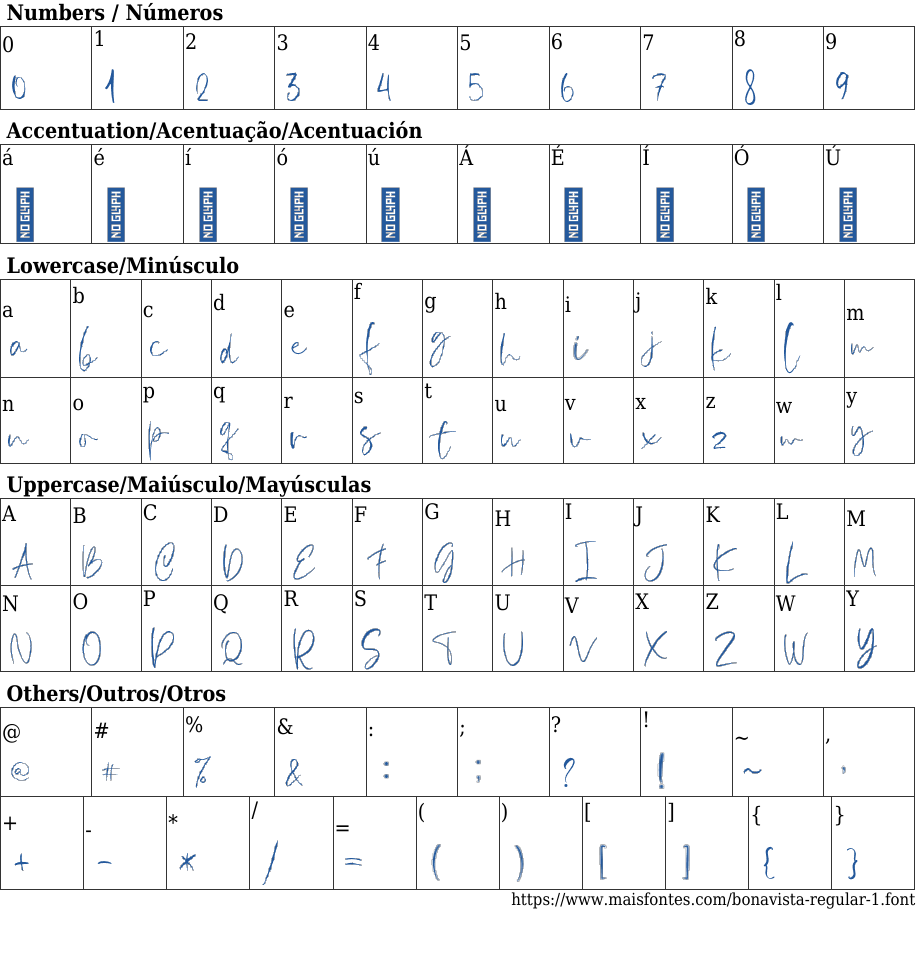
Bonavista Font . Thousands of designers (famous or not) use the image font detection system to find a font or similar free fonts from an image. Bonavista is an elegant and flowing handwritten font. It is pua encoded which means you can access all of the glyphs and swashes with ease! To learn more about the font and typography of the bonavista regular font, simply enter the text in the field below and click generate. A great choice for highlighting your design elements. Download bonavista|beauty script (686309) instantly now! Bonavista signature is the perfect font for all your fun designs. Click here and download the bonavista font · window, mac, linux · last updated 2024 · commercial licence included The bonavista signature font was designed by rinto dwi nugroho from almeera. Thousands of designers (famous or not) use the image font detection system to find a font or similar free fonts from an image.
Thousands of designers (famous or not) use the image font detection system to find a font or similar free fonts from an image. Thousands of designers (famous or not) use the image font detection system to find a font or similar free fonts from an image. To learn more about the font and typography of the bonavista regular font, simply enter the text in the field below and click generate. Bonavista is an elegant and flowing handwritten font. Bonavista signature is the perfect font for all your fun designs. The bonavista signature font was designed by rinto dwi nugroho from almeera. It is pua encoded which means you can access all of the glyphs and swashes with ease! Click here and download the bonavista font · window, mac, linux · last updated 2024 · commercial licence included Download bonavista|beauty script (686309) instantly now! A great choice for highlighting your design elements.
Simplicity Handwritten Font business, catchy, cute, elegant, font Bonavista Font Thousands of designers (famous or not) use the image font detection system to find a font or similar free fonts from an image. The bonavista signature font was designed by rinto dwi nugroho from almeera. Bonavista is an elegant and flowing handwritten font. Thousands of designers (famous or not) use the image font detection system to find a font or. Bonavista Font.
Bonavista Beauty script By Almeera_Std TheHungryJPEG Bonavista Font A great choice for highlighting your design elements. Click here and download the bonavista font · window, mac, linux · last updated 2024 · commercial licence included Bonavista is an elegant and flowing handwritten font. Thousands of designers (famous or not) use the image font detection system to find a font or similar free fonts from an image. The bonavista. Bonavista Font.
Bonavista Coffee Company Fonts In Use Bonavista Font Click here and download the bonavista font · window, mac, linux · last updated 2024 · commercial licence included A great choice for highlighting your design elements. Thousands of designers (famous or not) use the image font detection system to find a font or similar free fonts from an image. Bonavista signature is the perfect font for all your fun. Bonavista Font.
Bonavista Beauty script By Almeera_Std TheHungryJPEG Bonavista Font Thousands of designers (famous or not) use the image font detection system to find a font or similar free fonts from an image. A great choice for highlighting your design elements. The bonavista signature font was designed by rinto dwi nugroho from almeera. Thousands of designers (famous or not) use the image font detection system to find a font or. Bonavista Font.
Download Bonavista font Bonavista Font Bonavista is an elegant and flowing handwritten font. Thousands of designers (famous or not) use the image font detection system to find a font or similar free fonts from an image. A great choice for highlighting your design elements. Click here and download the bonavista font · window, mac, linux · last updated 2024 · commercial licence included The bonavista. Bonavista Font.